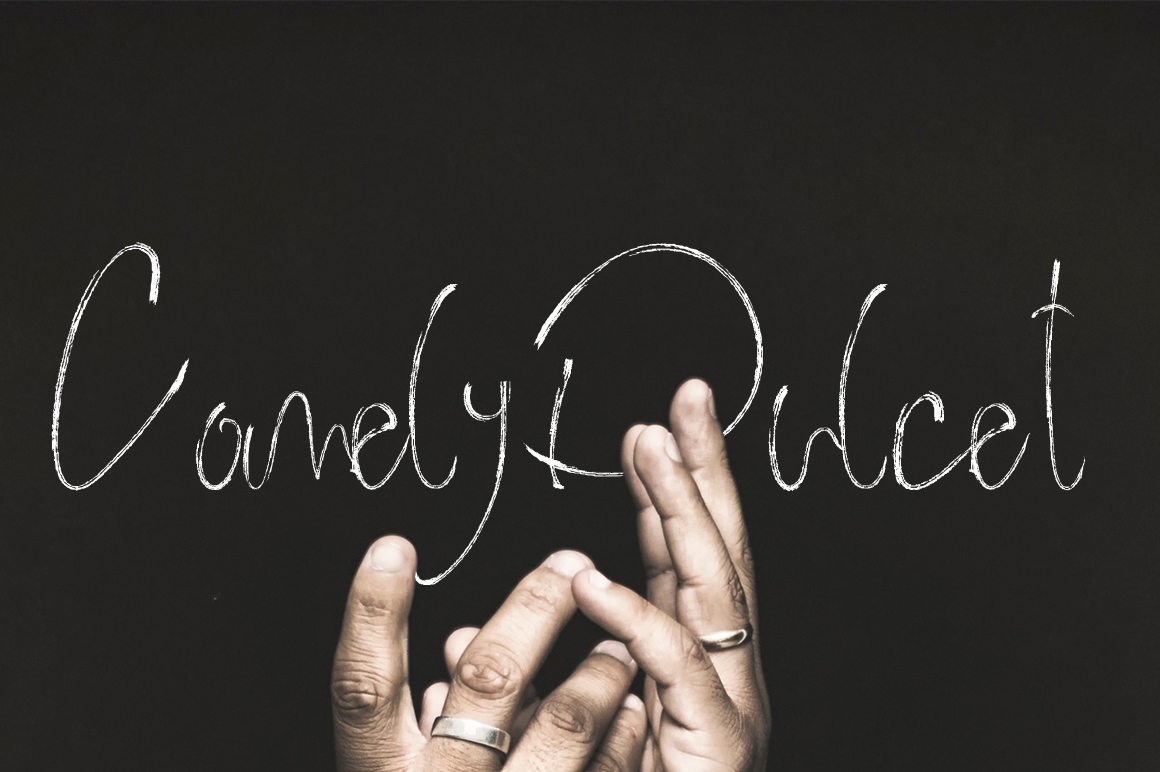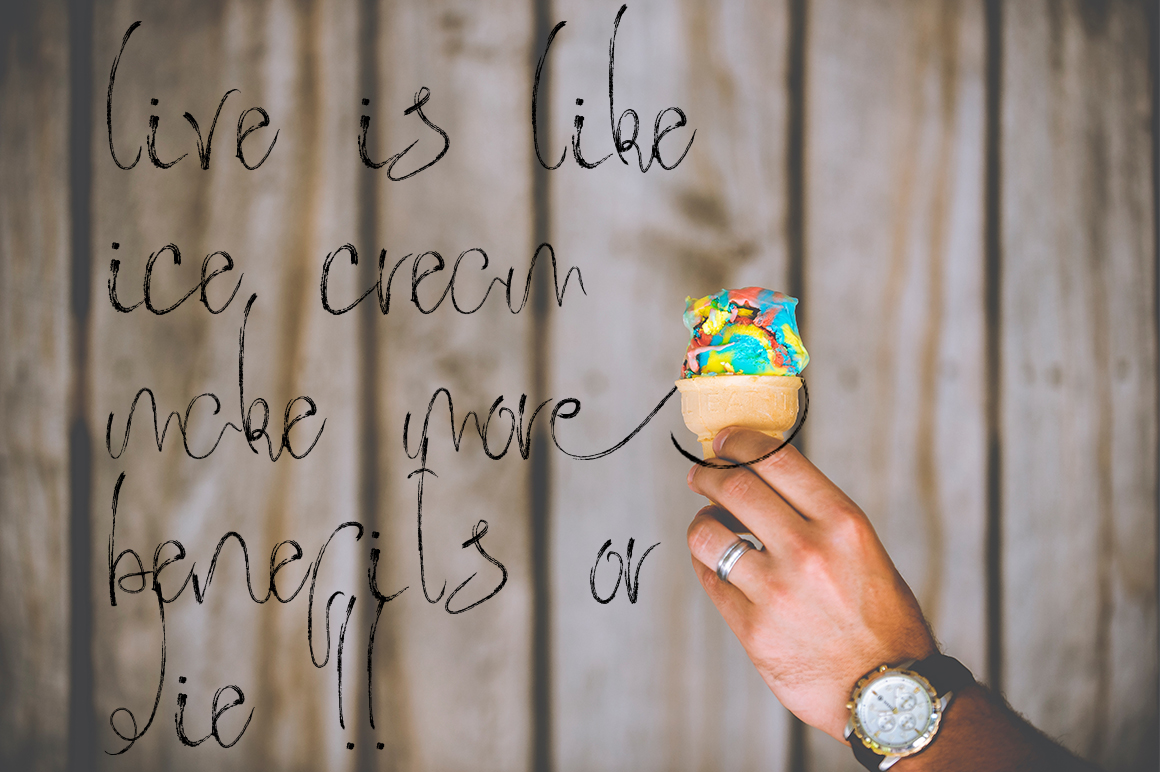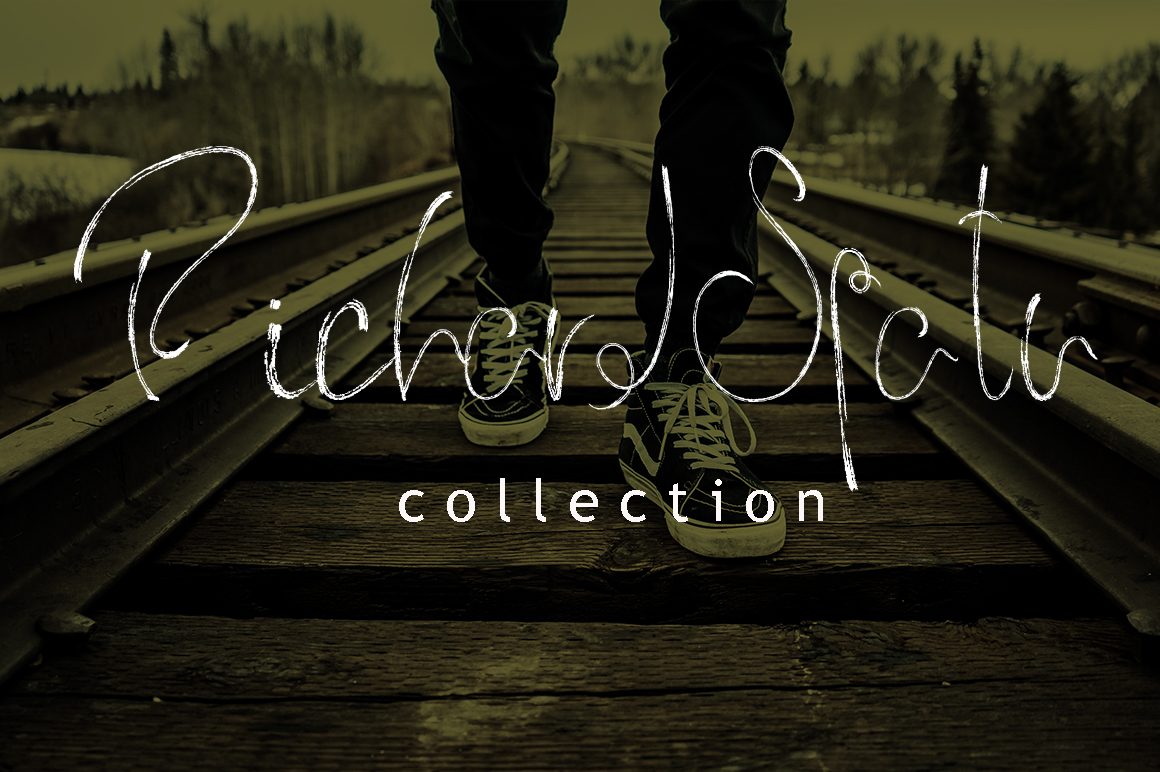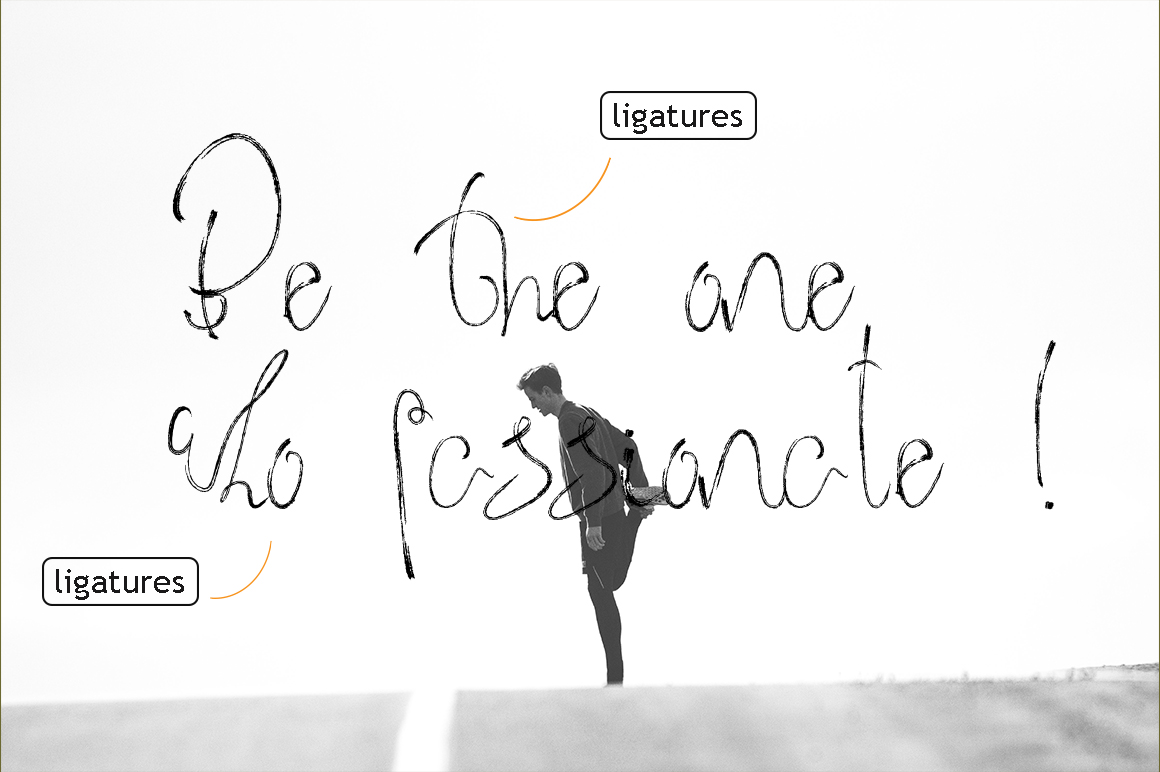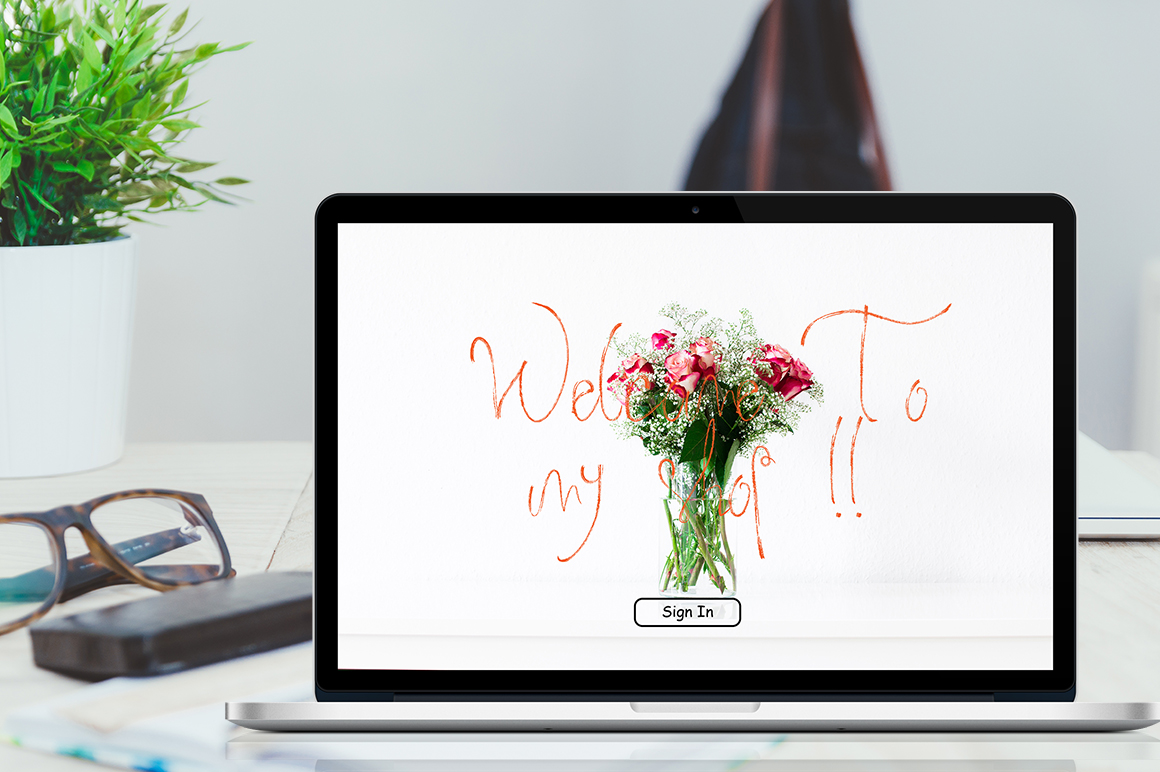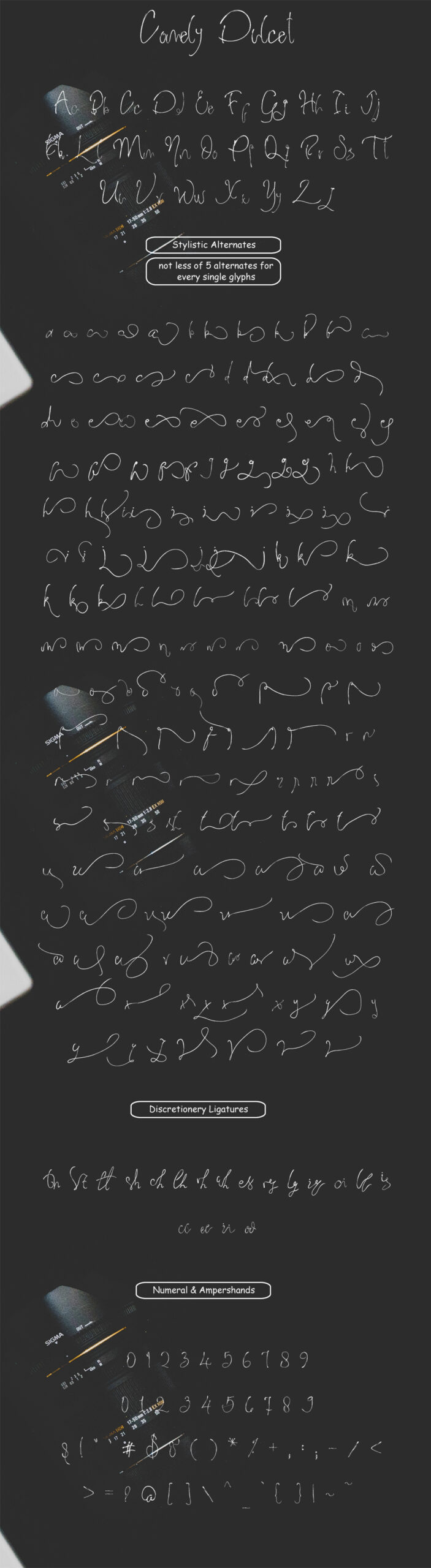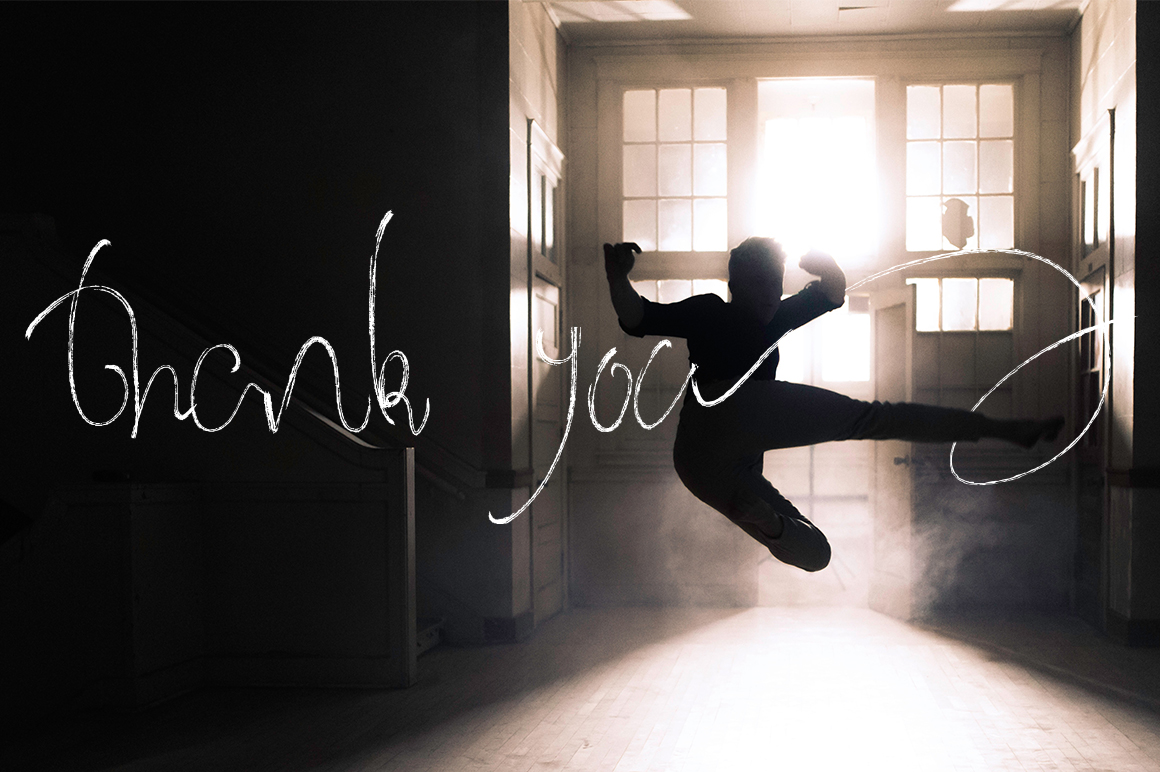
HomeScript FontsComely Dulcet Font Script Fonts Comely Dulcet Font FacebookXPinterestWhatsApp Comely Dulcet Font Poster 2 Comely Dulcet Font Poster 3 Comely Dulcet Font Poster 4 Comely Dulcet Font Poster 5 Comely Dulcet Font Poster 6 Comely Dulcet Font Poster 7 About Comely Dulcet Font Comely Dulcet is a thin handmade script created to give a personal touch to your designs. DOWNLOAD NOW People also explored Garanimals Rampung Font Handa Font Hammerte Font Dayger Font Retrade Font Unmoor Family Font Jasmine Estella Font Autography Font 320 0 TagsComely Dulcet Font Previous articleHello Tropical FontNext articleChalky Voyage Font LEAVE A REPLY Cancel reply Comment: Please enter your comment! Name:* Please enter your name here Email:* You have entered an incorrect email address! Please enter your email address here Website: Save my name, email, and website in this browser for the next time I comment. Personal Use Free Grillin Personal Use Free Read more about this font Wanita Cantik Personal Use Free Read more about this font William Personal Use Free Read more about this font Angola Beach Personal Use Free Read more about this font BLOG 5 Fonts That Will Dominate Design Trends in 2026 5 Fonts for 2026 That Will Dominate Design Trends Typography plays a critical role in visual communication, and as we look ahead to 2026, it’s... Free vs Paid Fonts: Why Investing in Premium Fonts Is Worth It Exploring Font Trends How to Install and Use Fonts on Windows, macOS, and Web Projects